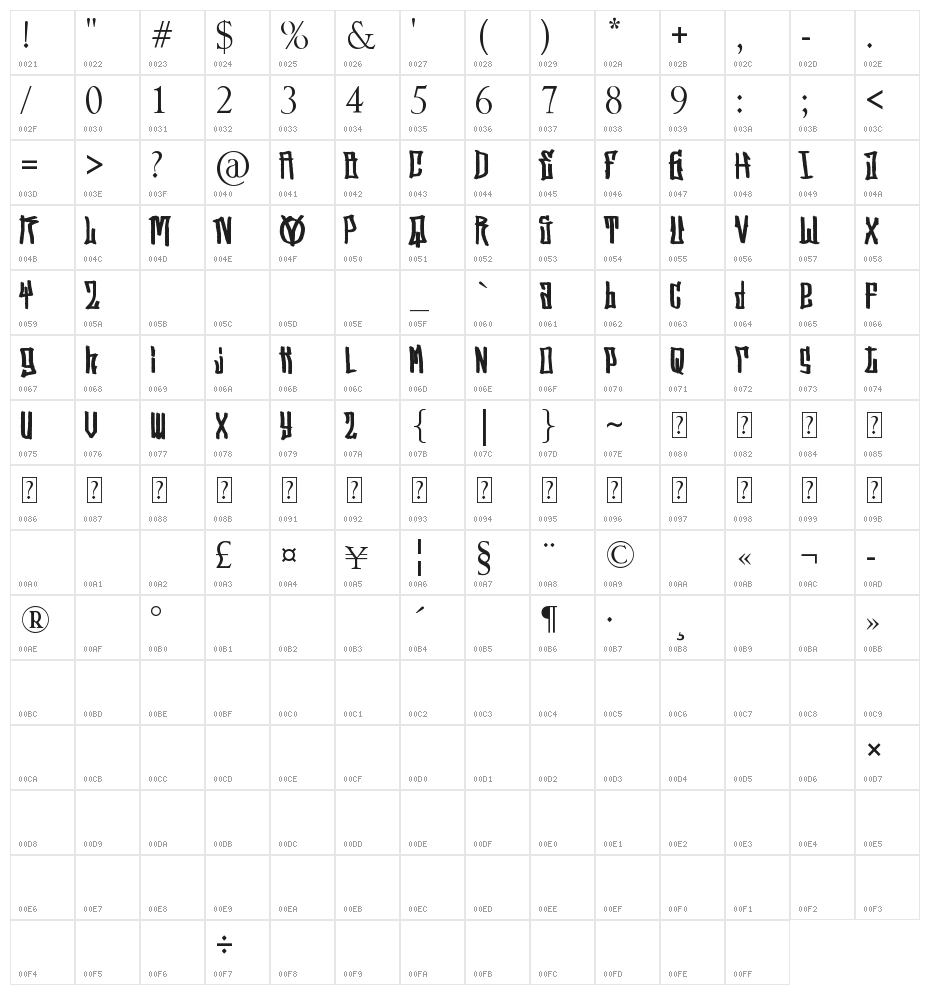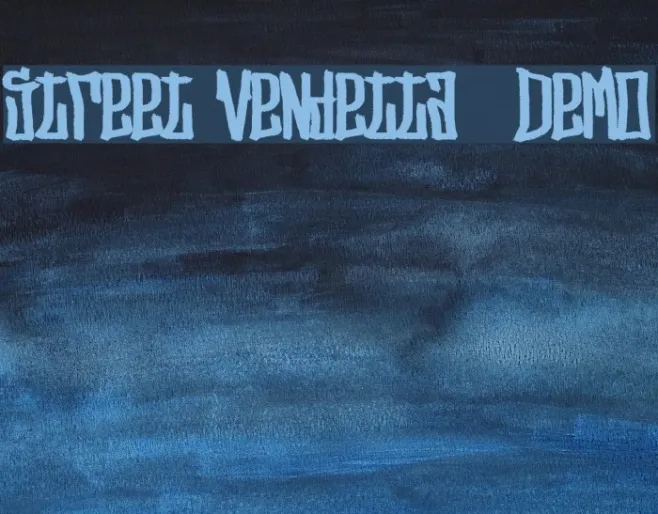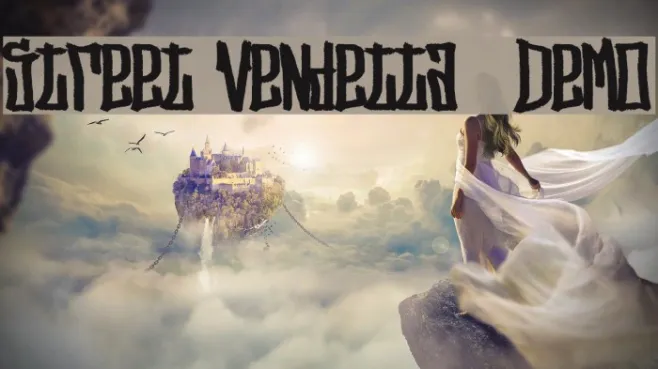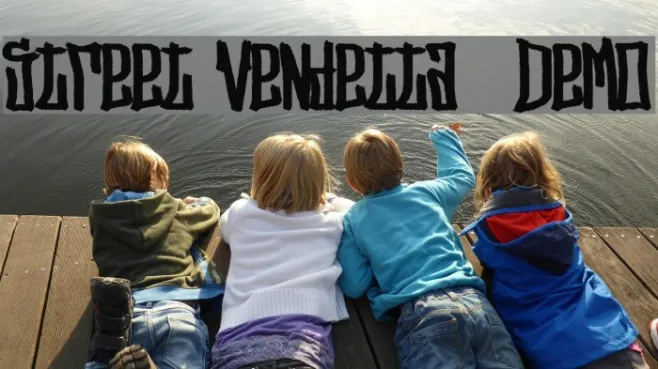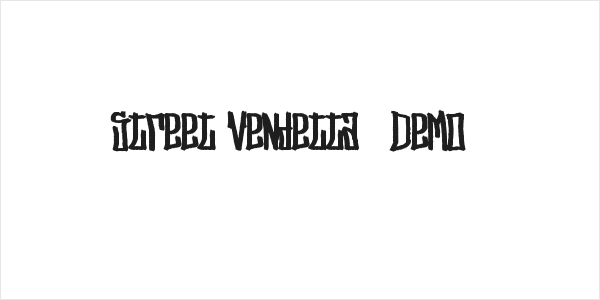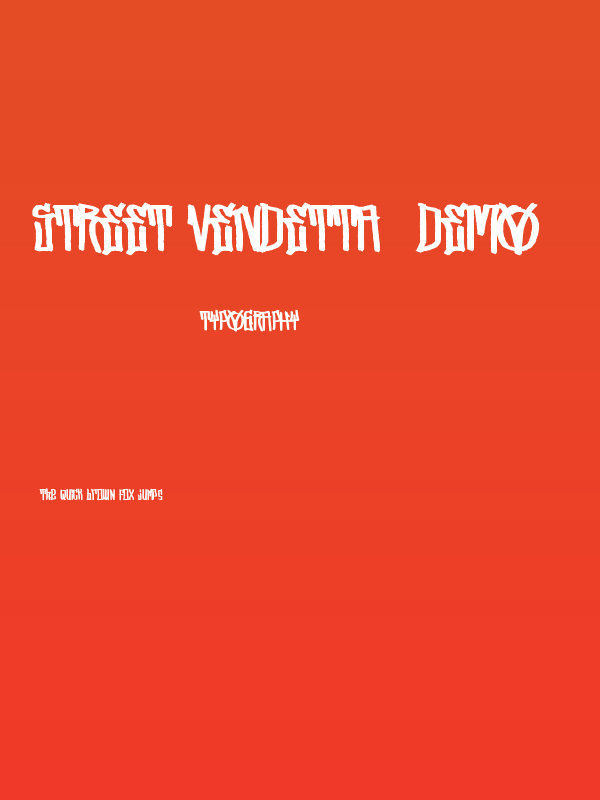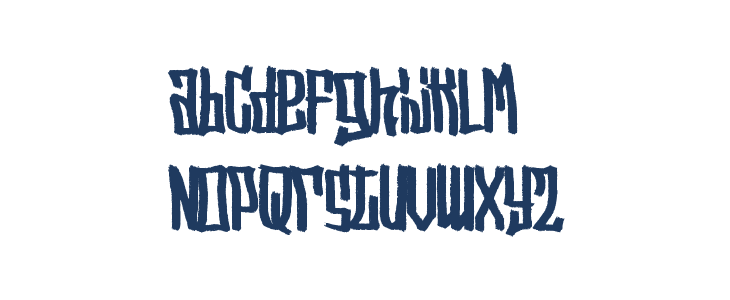
Street Vendetta [Demo] Font
Street Vendetta [Demo] Description
This font features a bold and edgy style, reminiscent of urban graffiti and street art. The characters are designed with sharp angles and a rough texture, giving them a rebellious and dynamic appearance. The uppercase letters are particularly striking, with exaggerated forms and a sense of movement. The lowercase letters maintain the same rugged aesthetic, while the numbers and special characters complement the overall theme. This font is perfect for projects that require a bold statement and a touch of urban flair.
| Overall Style | Urban, Edgy, Rebellious |
| Proposed Projects | Ideal for streetwear branding, music album covers, event posters, and urban-themed designs. |